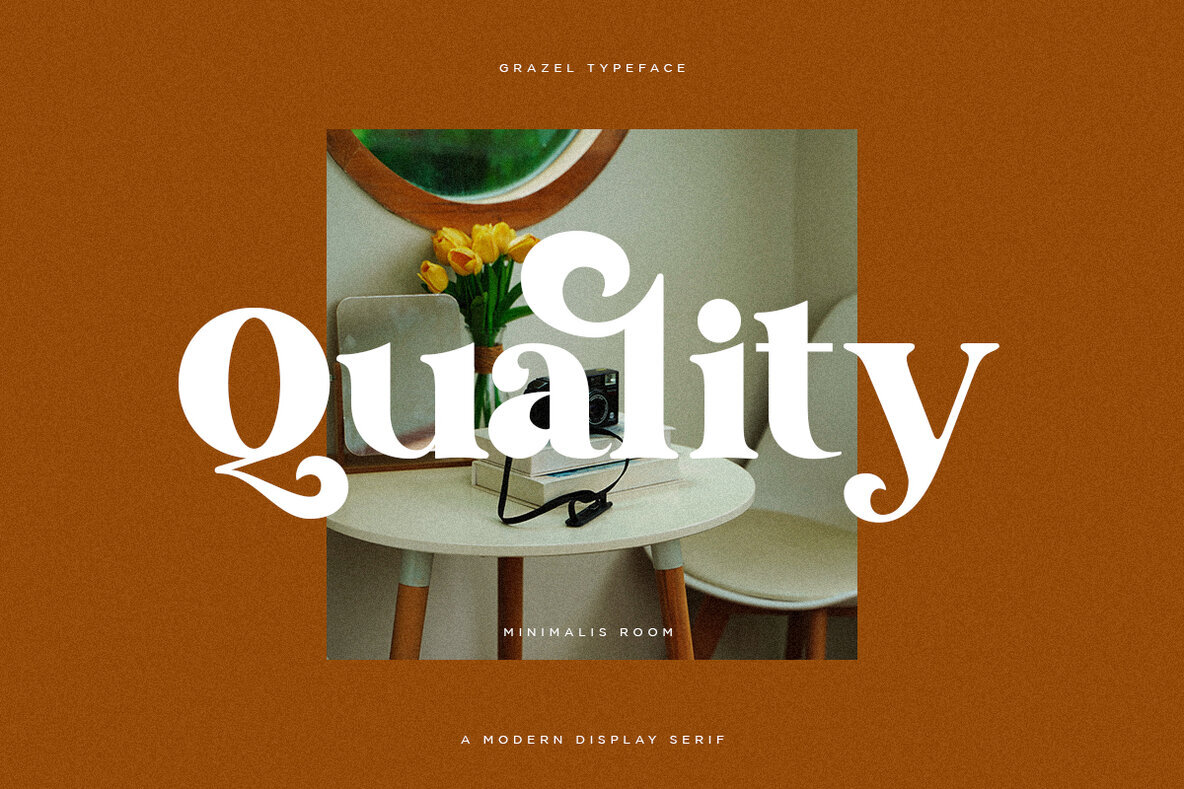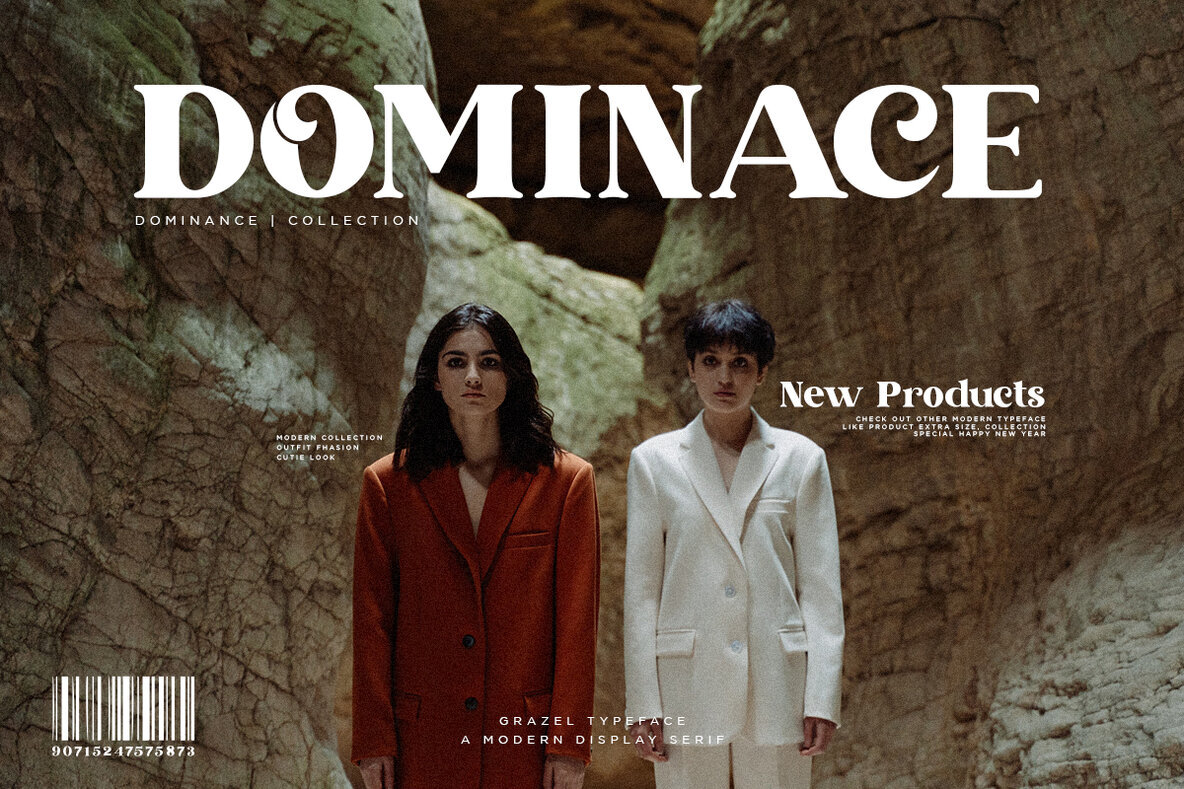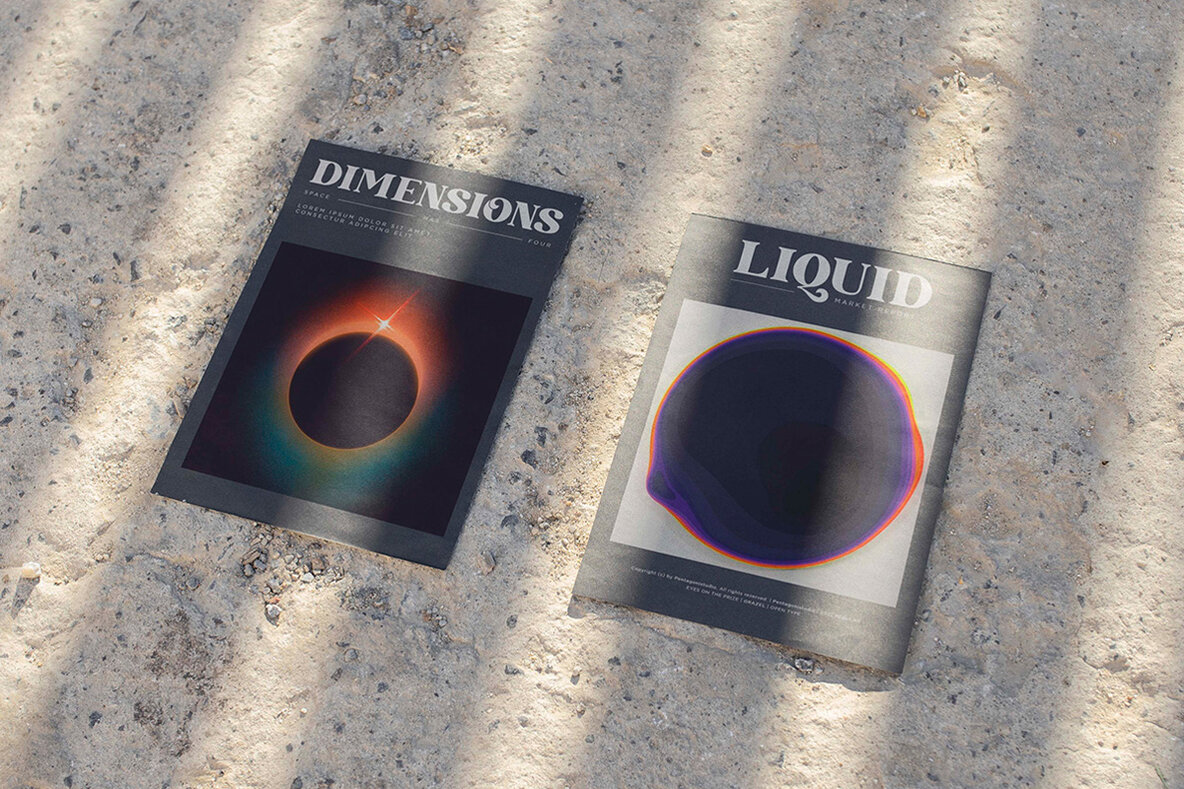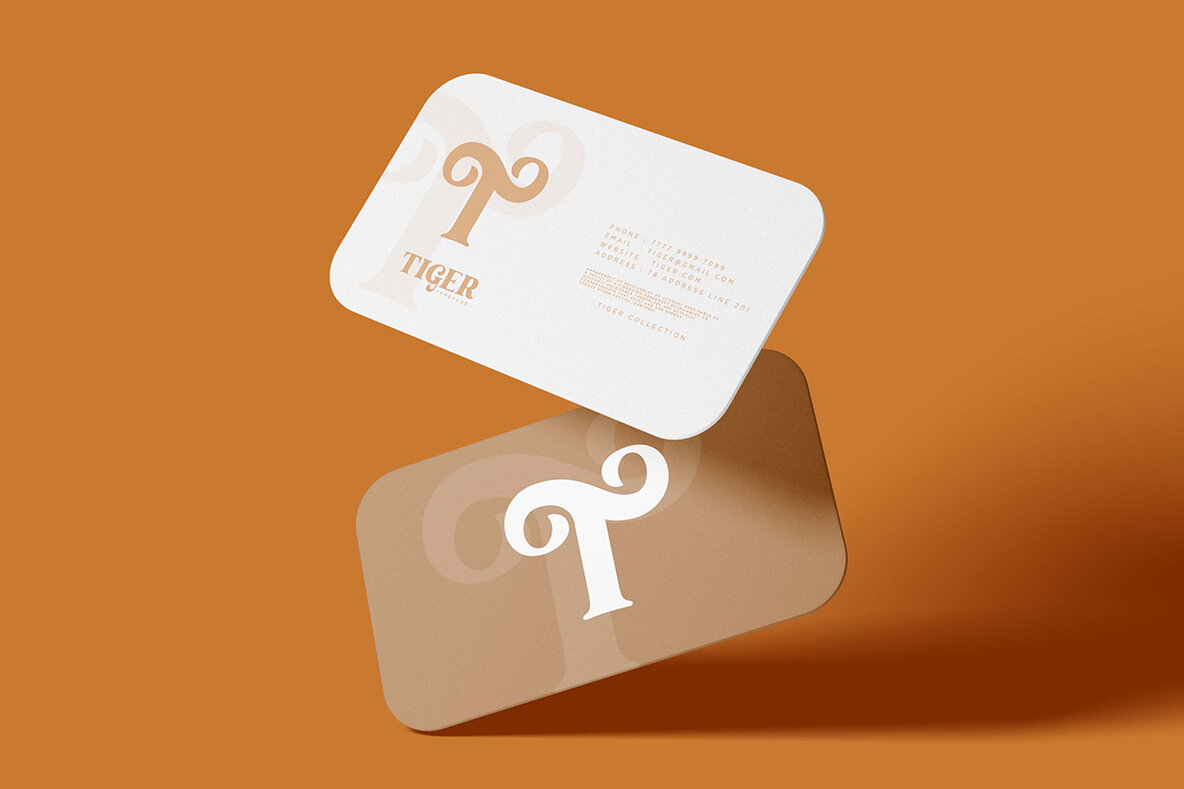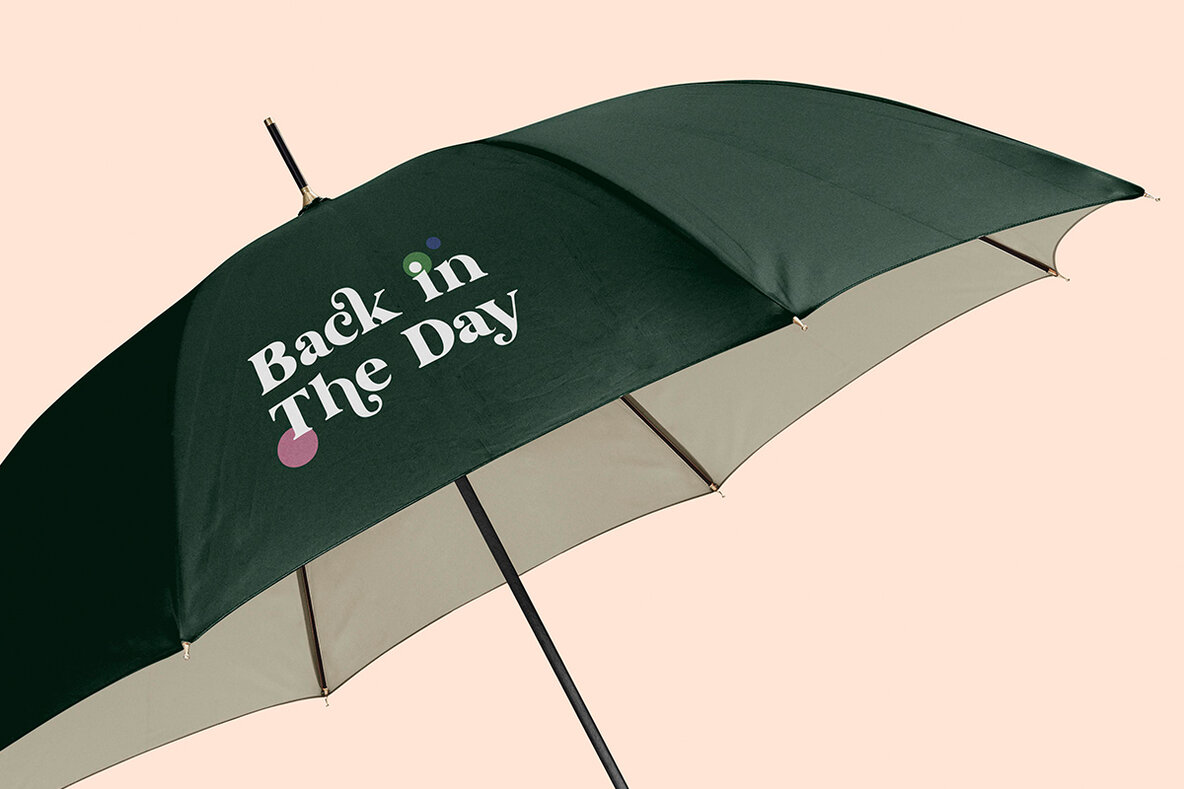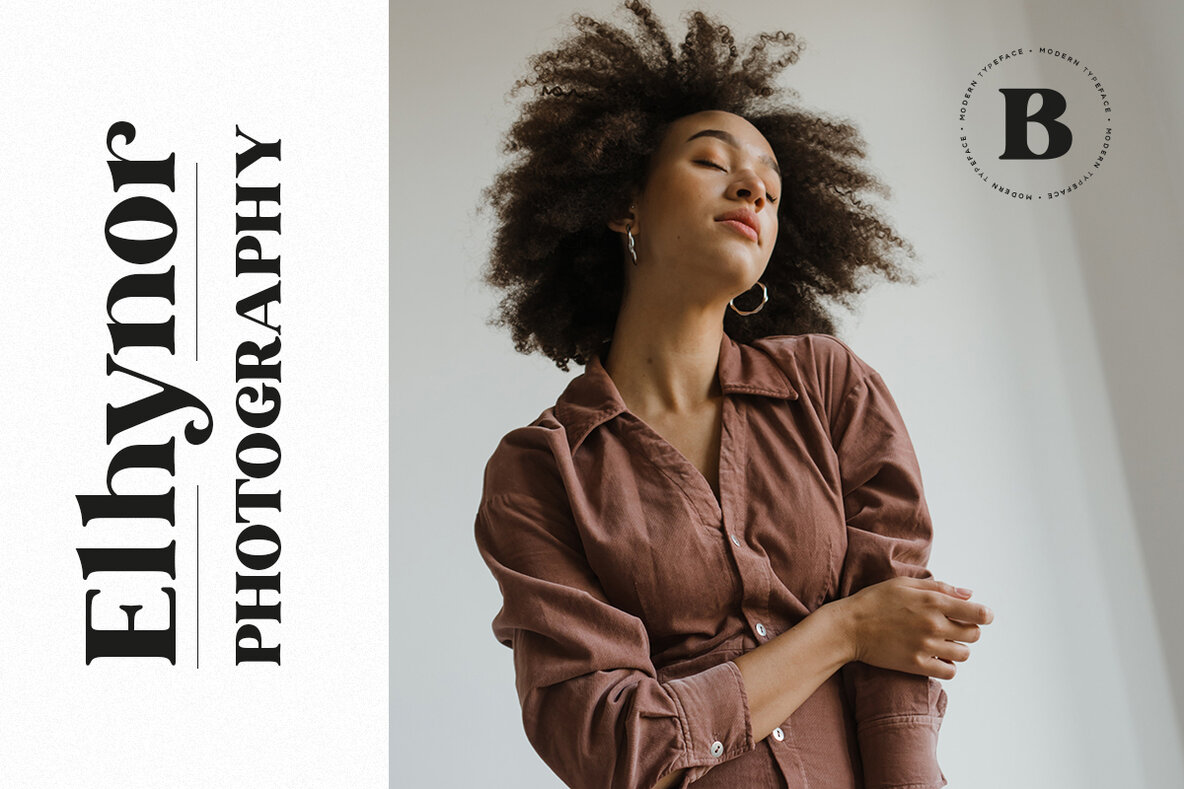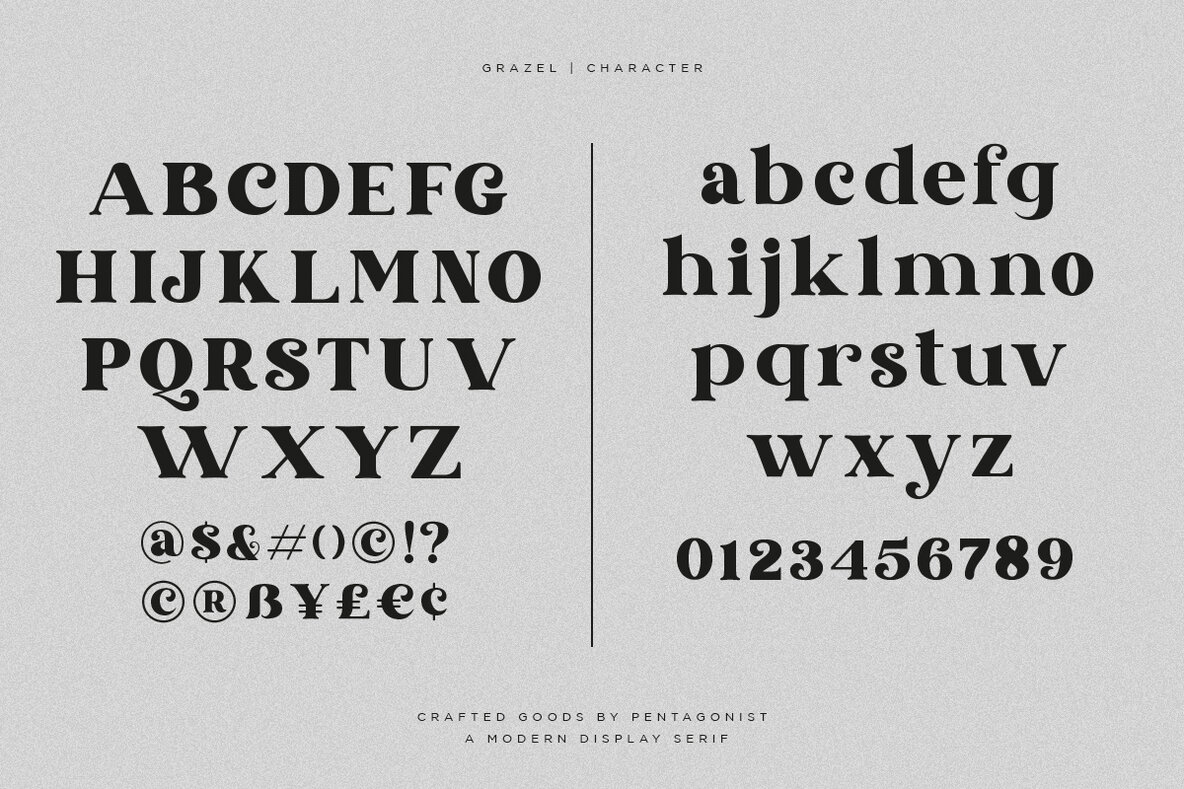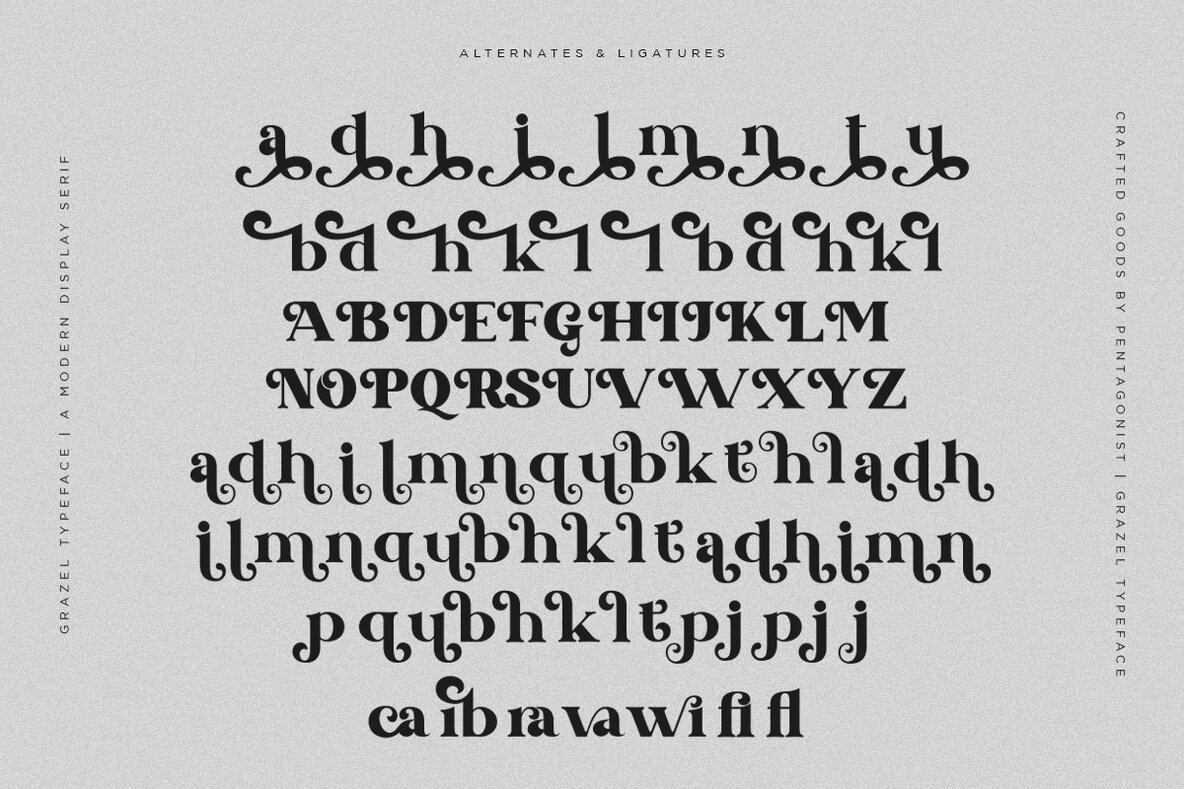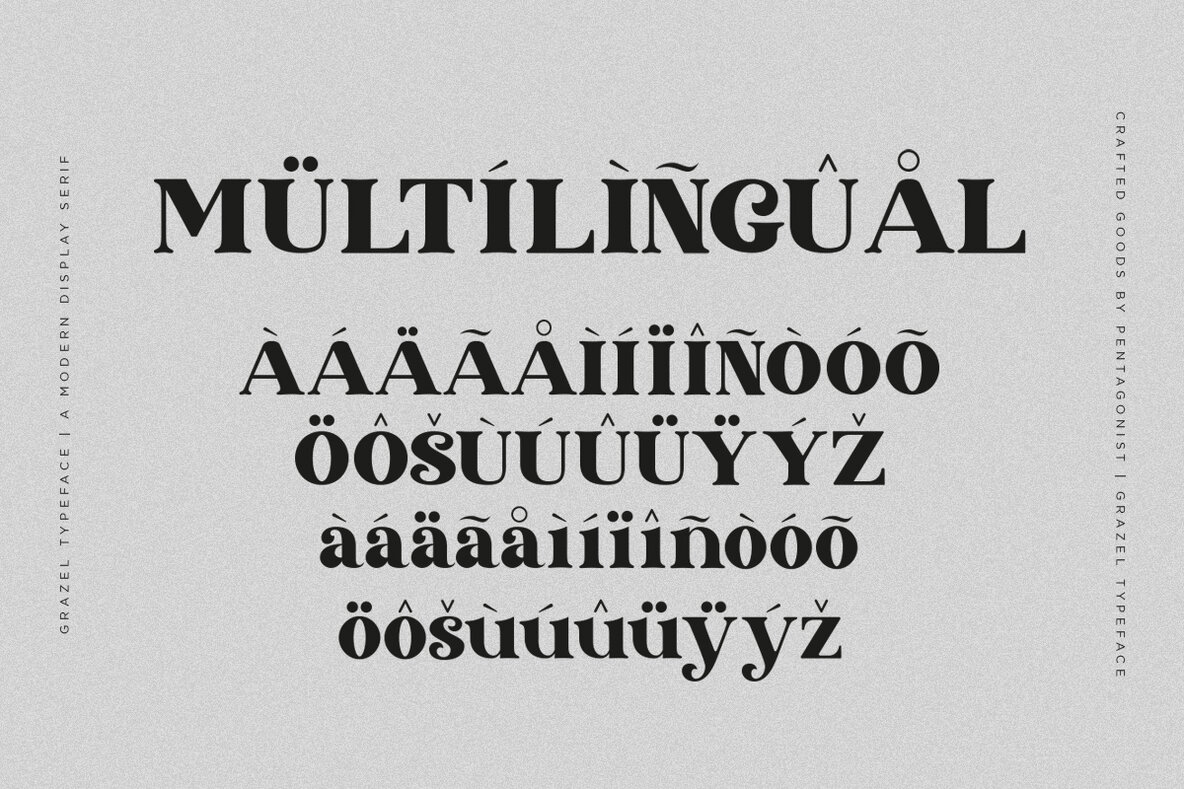
Grazel Display Serif: A Vintage-Inspired Typeface
Embrace the elegance of vintage with Grazel, a modern display serif crafted with inspiration from retro and vintage styles. This typeface harmonizes classic design elements with contemporary aesthetics, making it an excellent choice for projects that aim to project sophistication and timeless appeal.
• Modern Display Style – Combines retro charm with modern design.